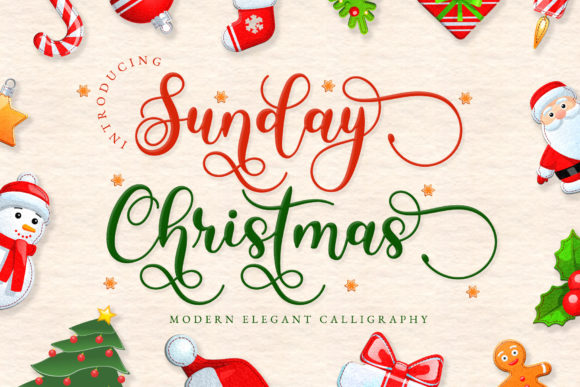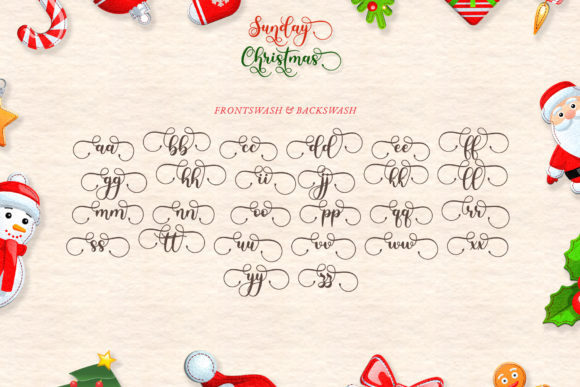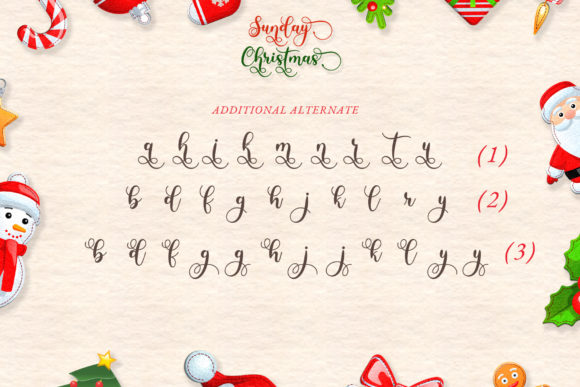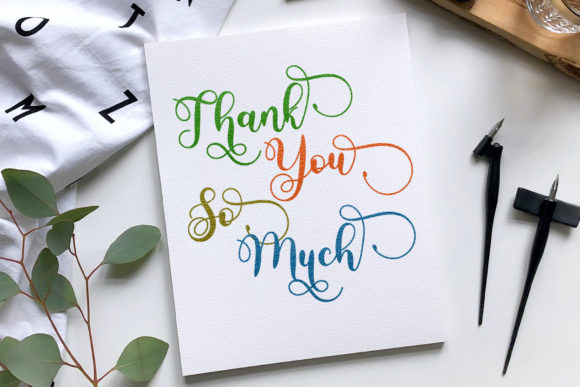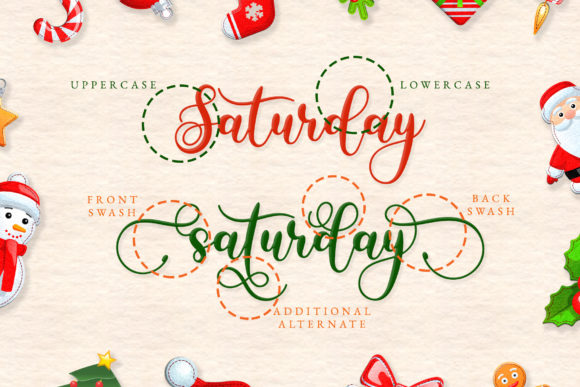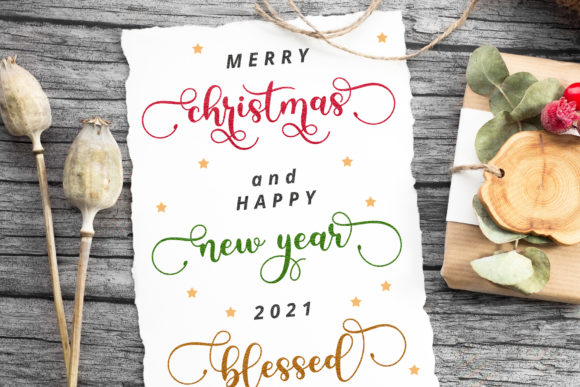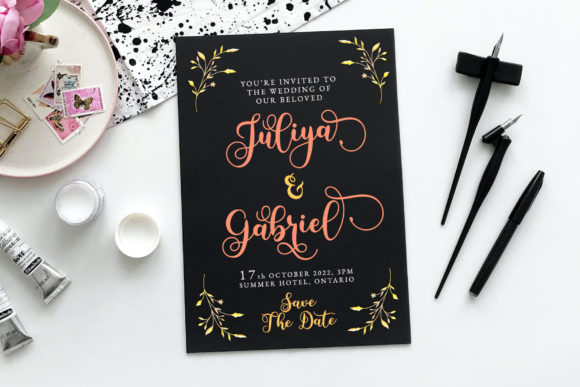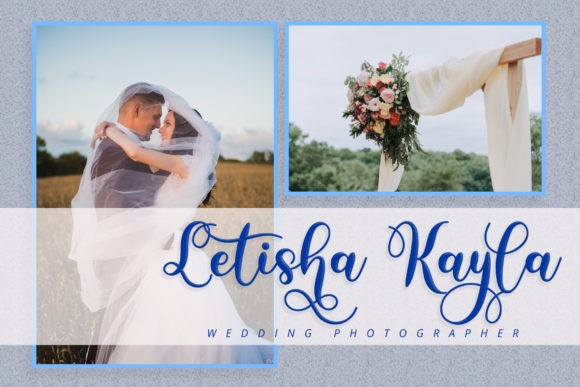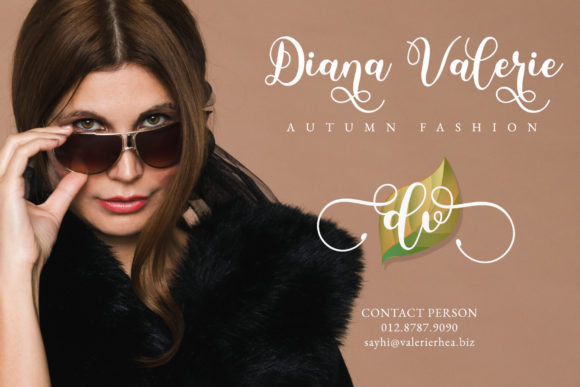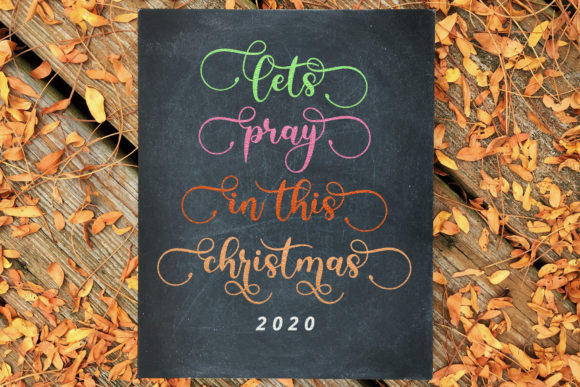
Sunday Christmas Font
About Sunday Christmas Font
Sunday Christmas is a friendly, fresh, rich, and elegant handwritten font. It is ideal for holiday-themed greeting cards and for any crafting project that requires a romantic touch. This font is PUA encoded which means you can access all of the glyphs and swashes with ease!